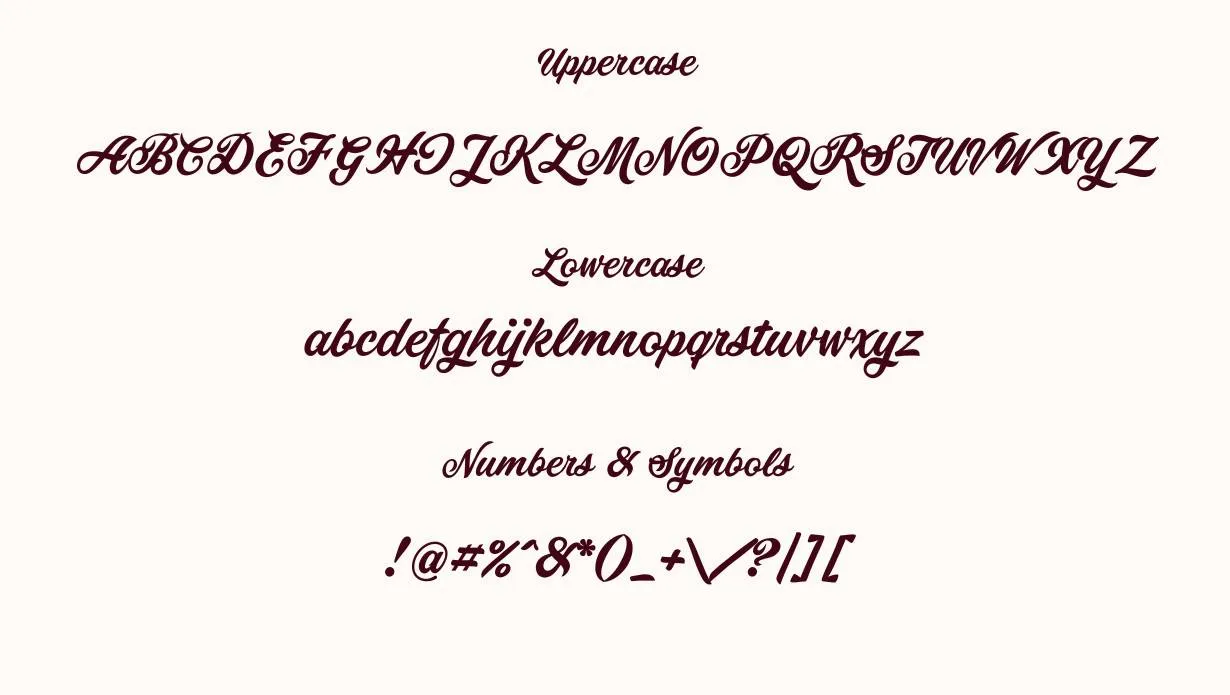
Painter font is a creative and artistic typeface that adds a painterly flair to your text. The brushstroke-inspired letters give a handcrafted and expressive feel, making it ideal for projects related to art, design, or creativity.
This font adds a unique and personalized touch to your words, enhancing the overall visual appeal of your work. Whether you’re working on a portfolio, art exhibition materials, or creative writing, Painter font brings an imaginative and whimsical quality to your text.